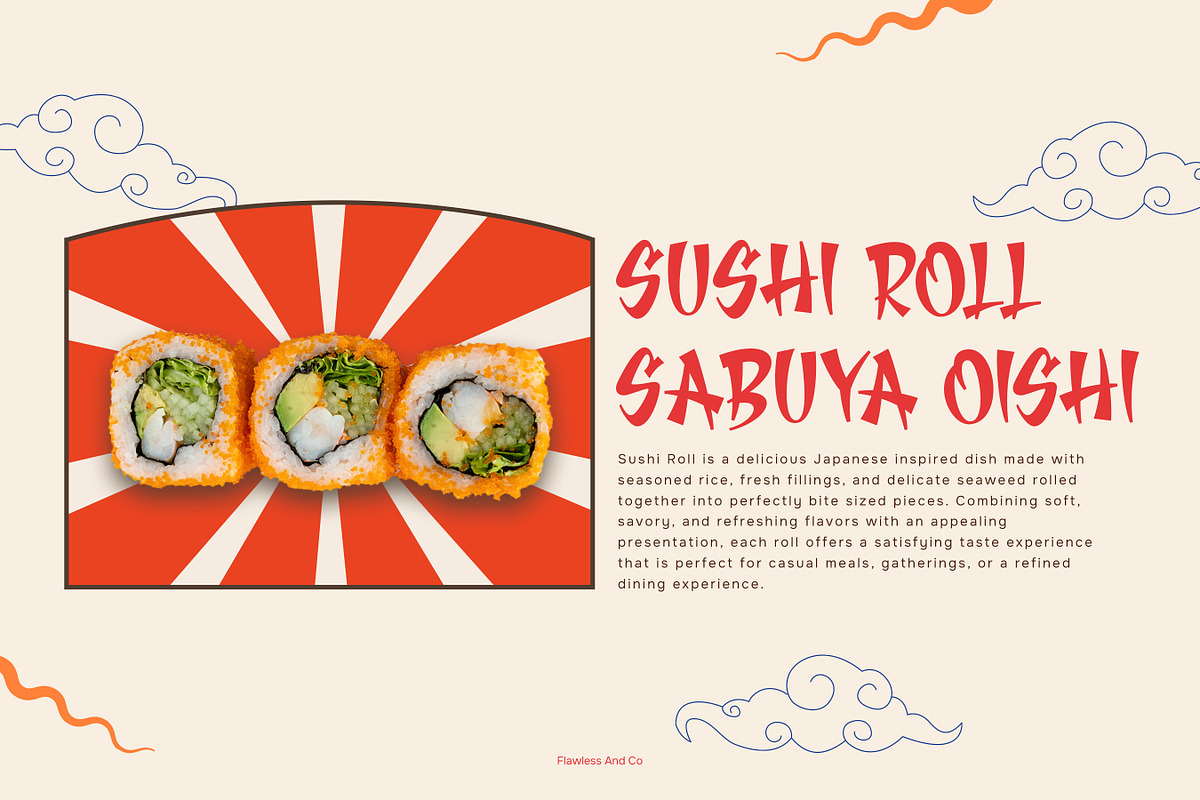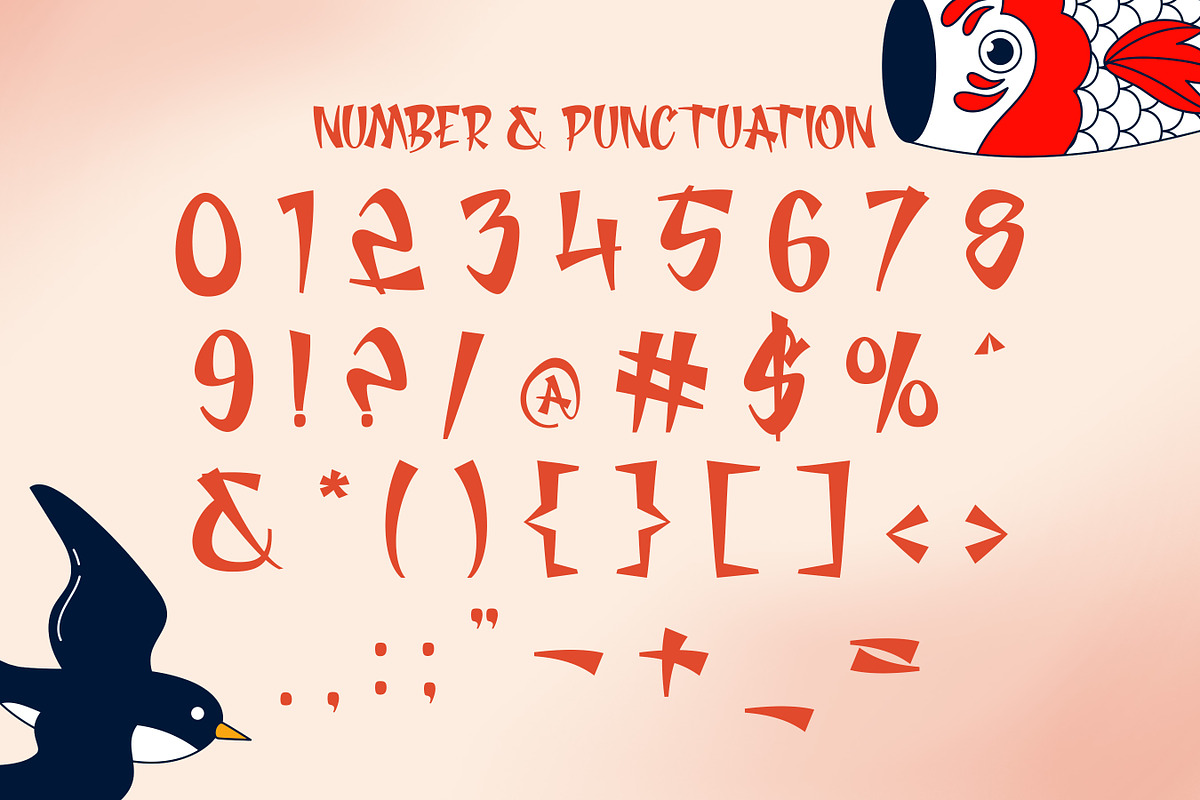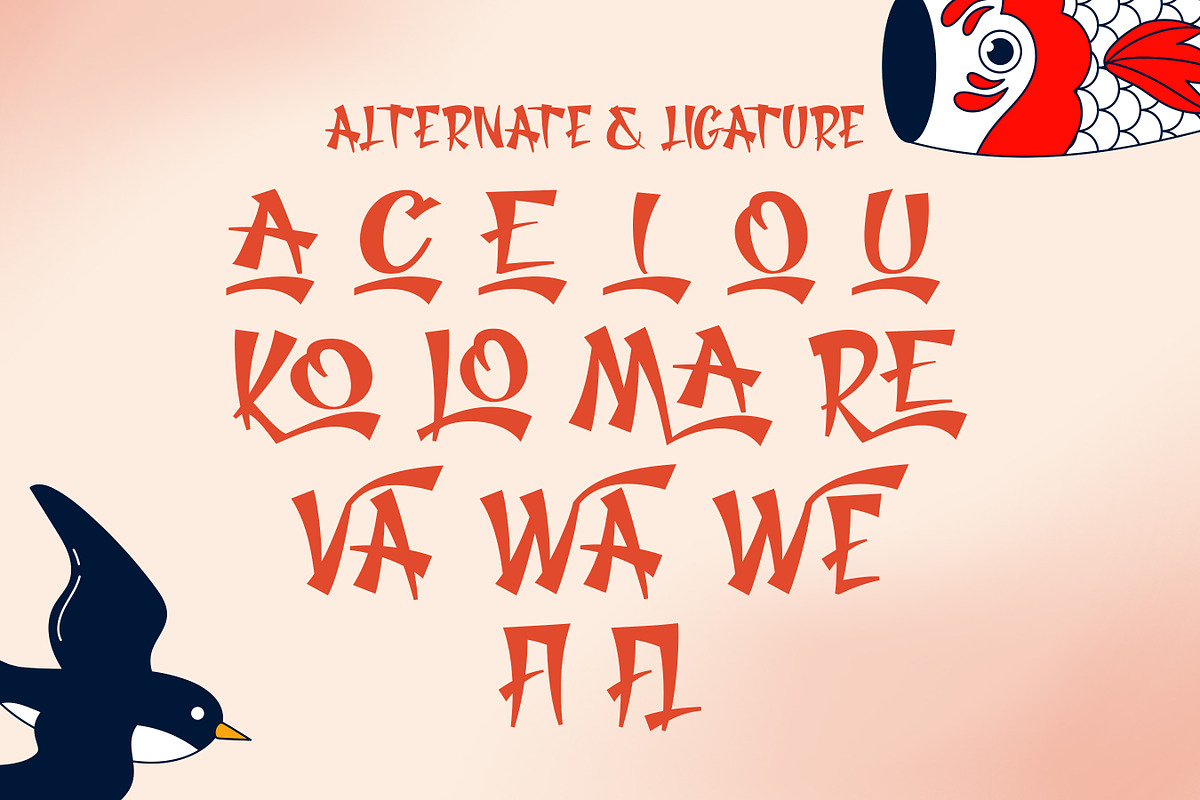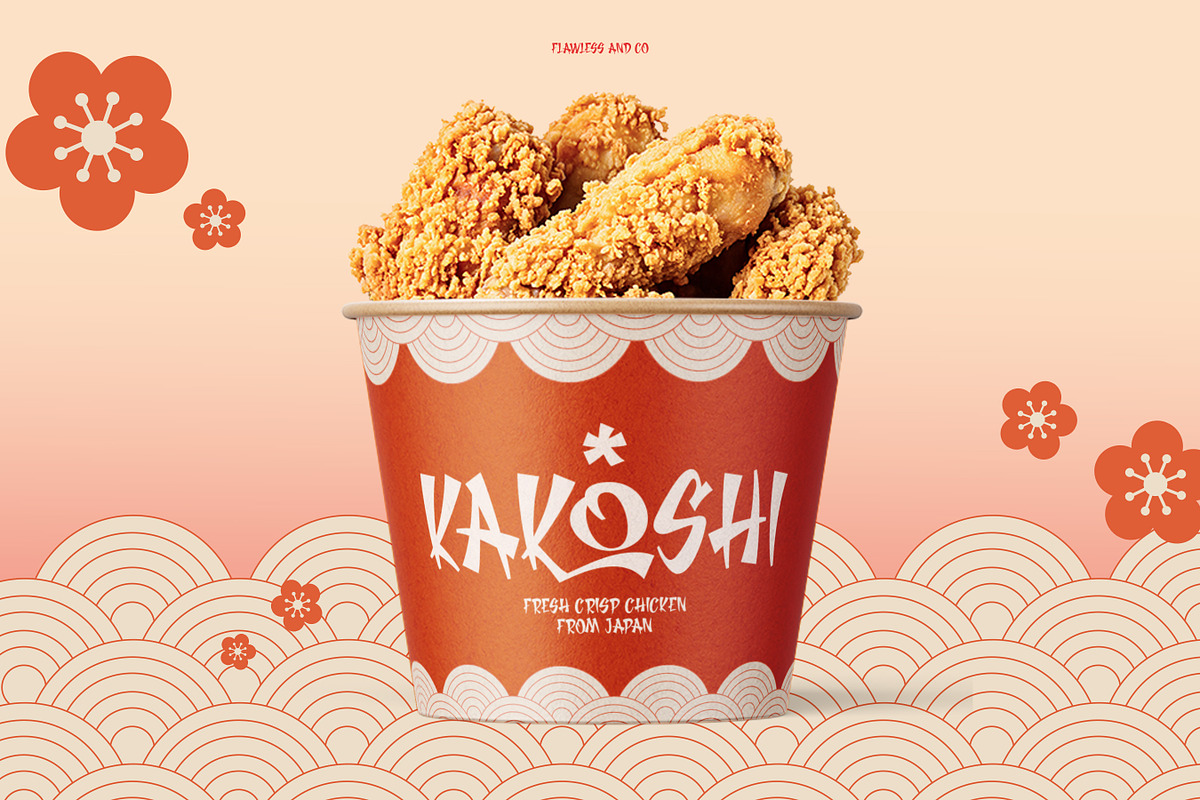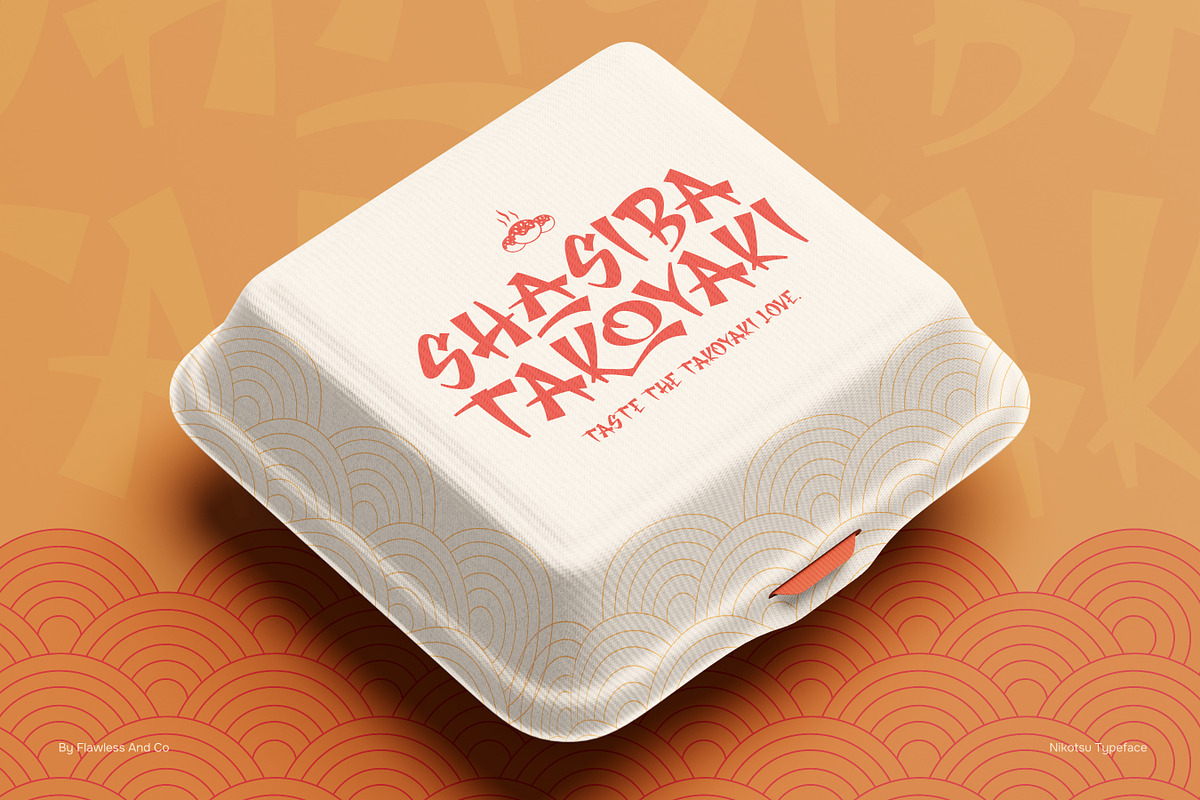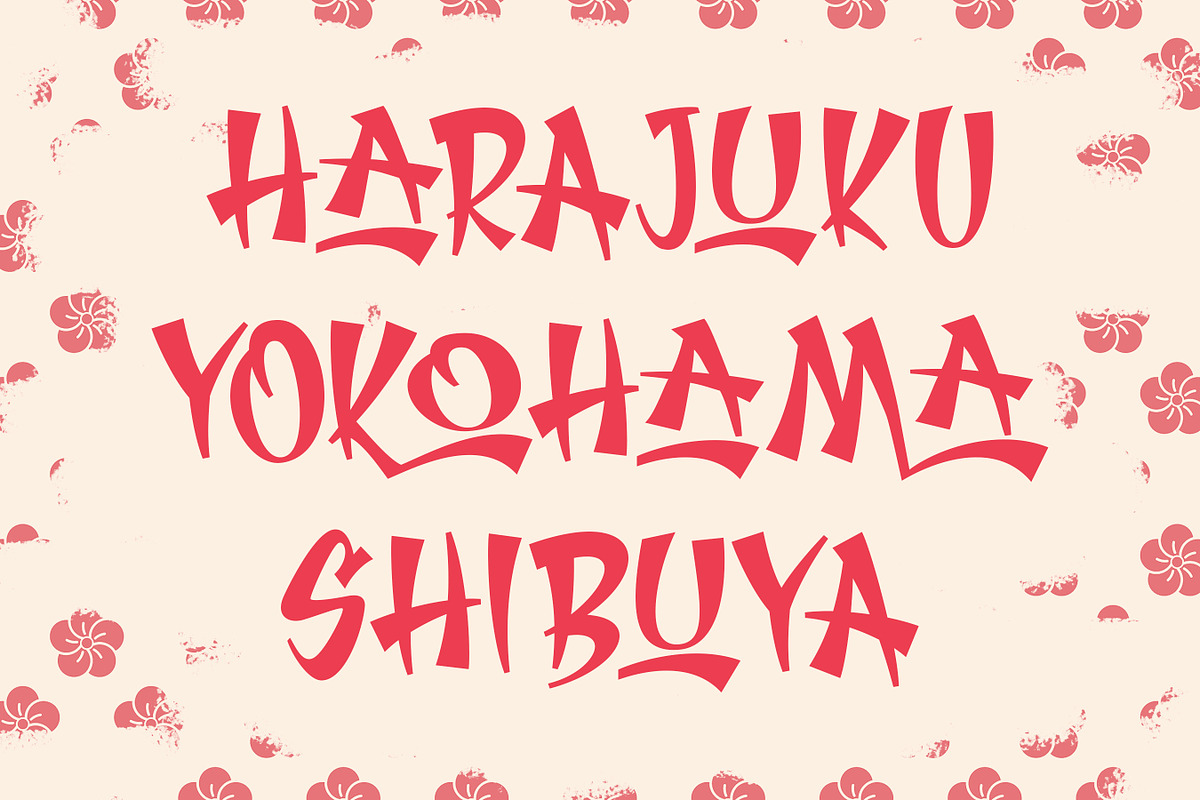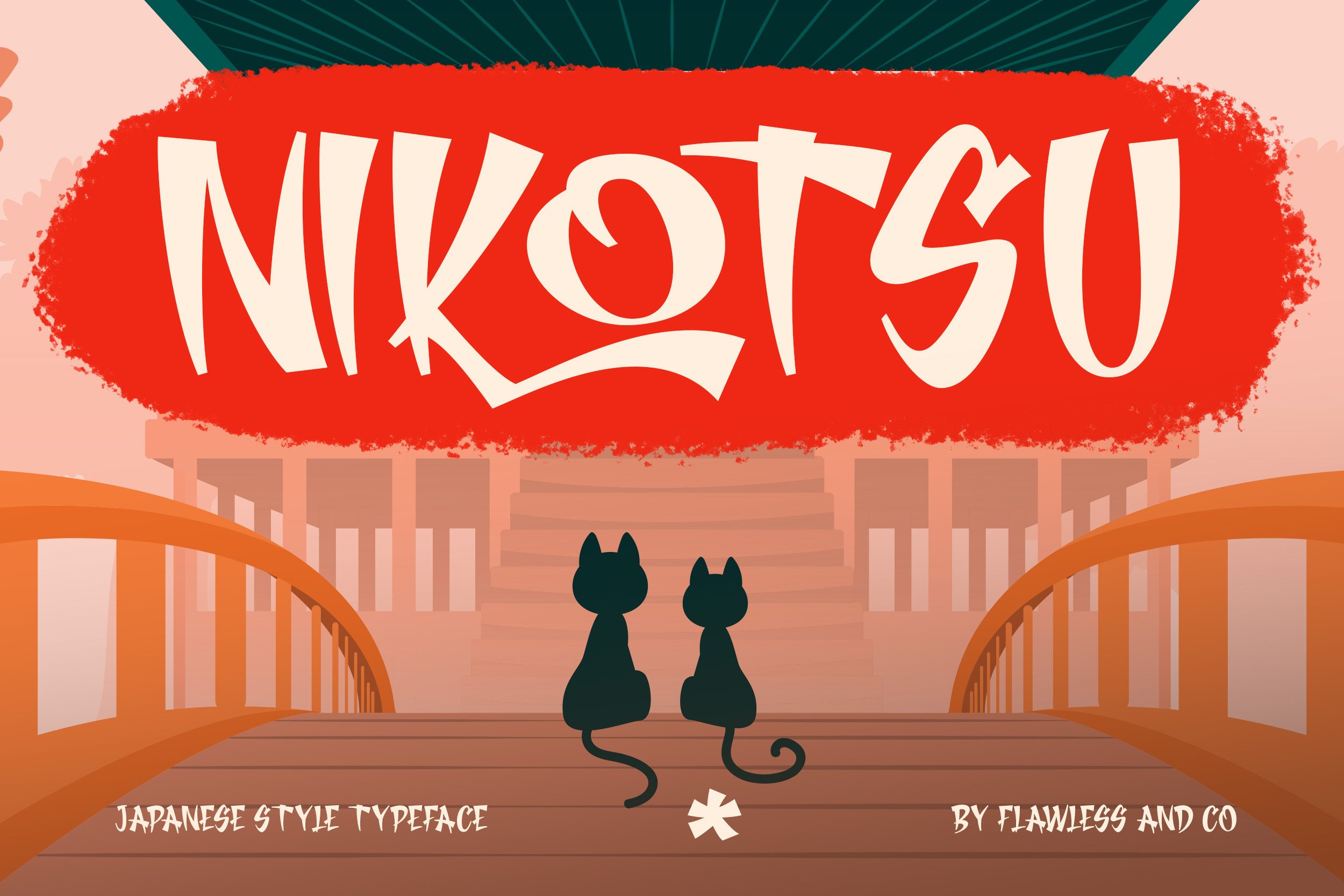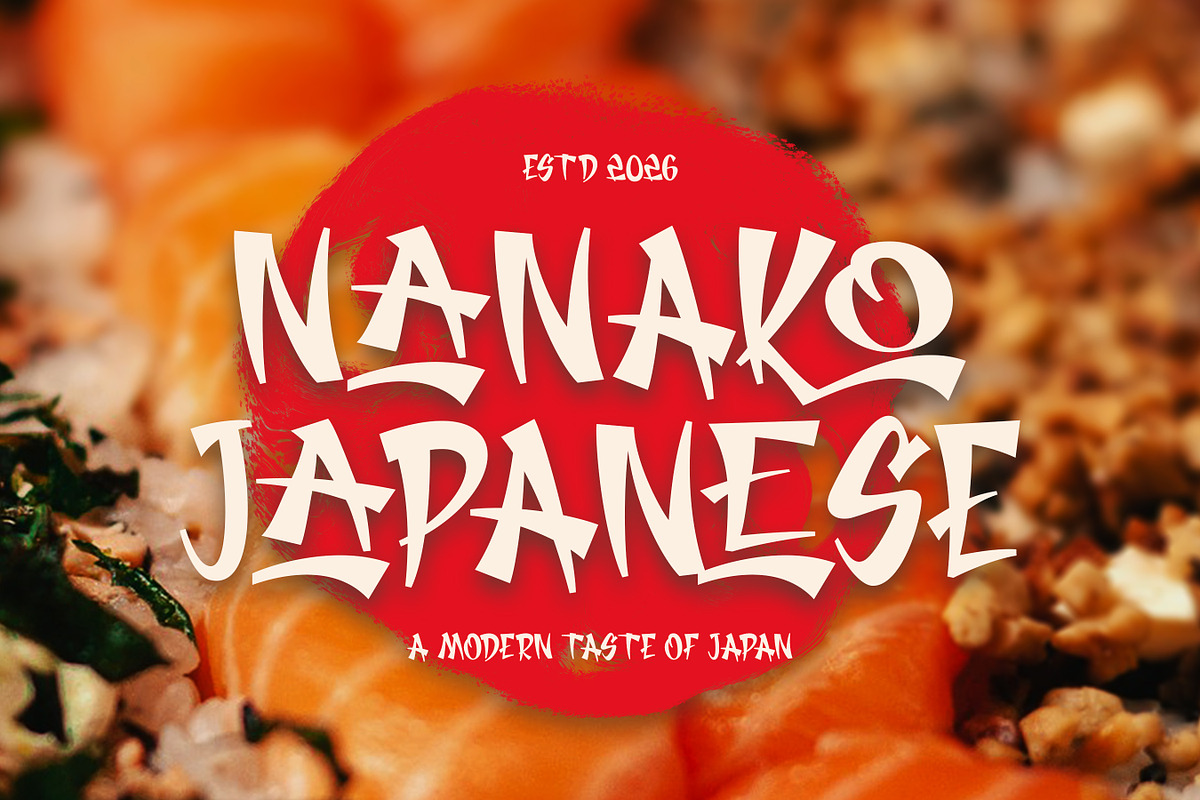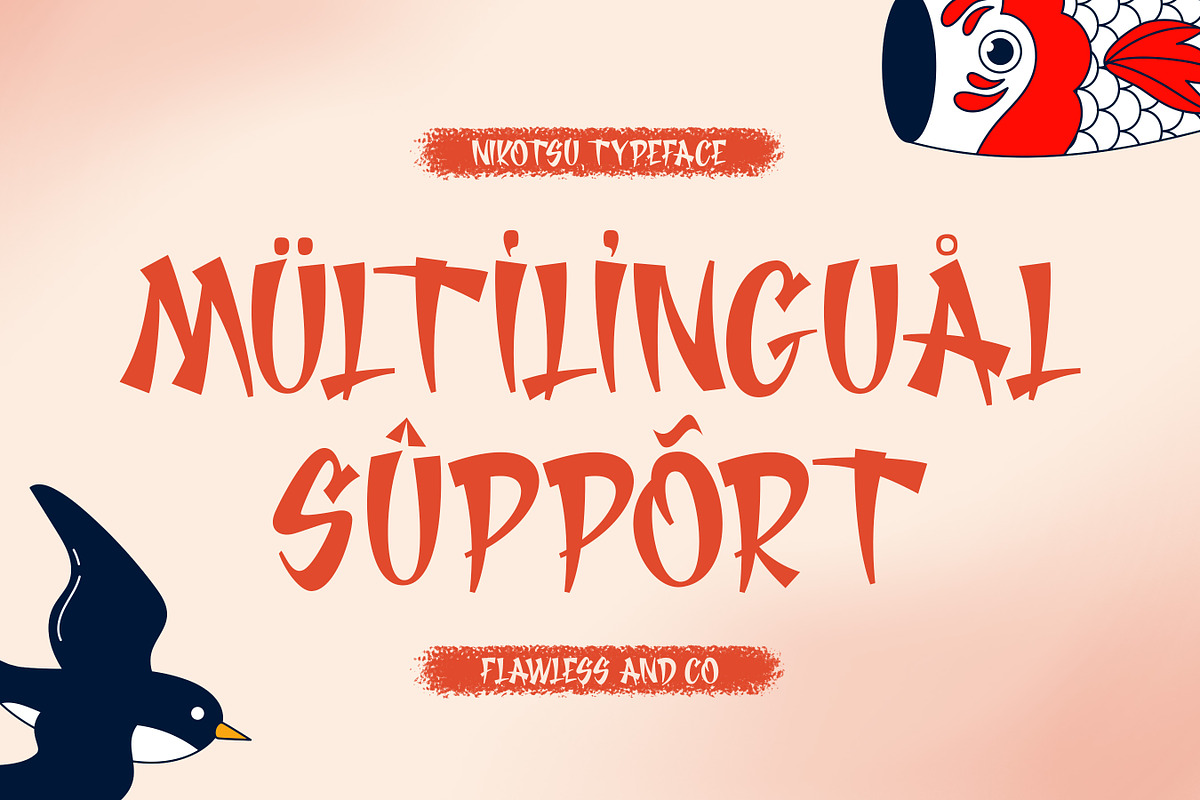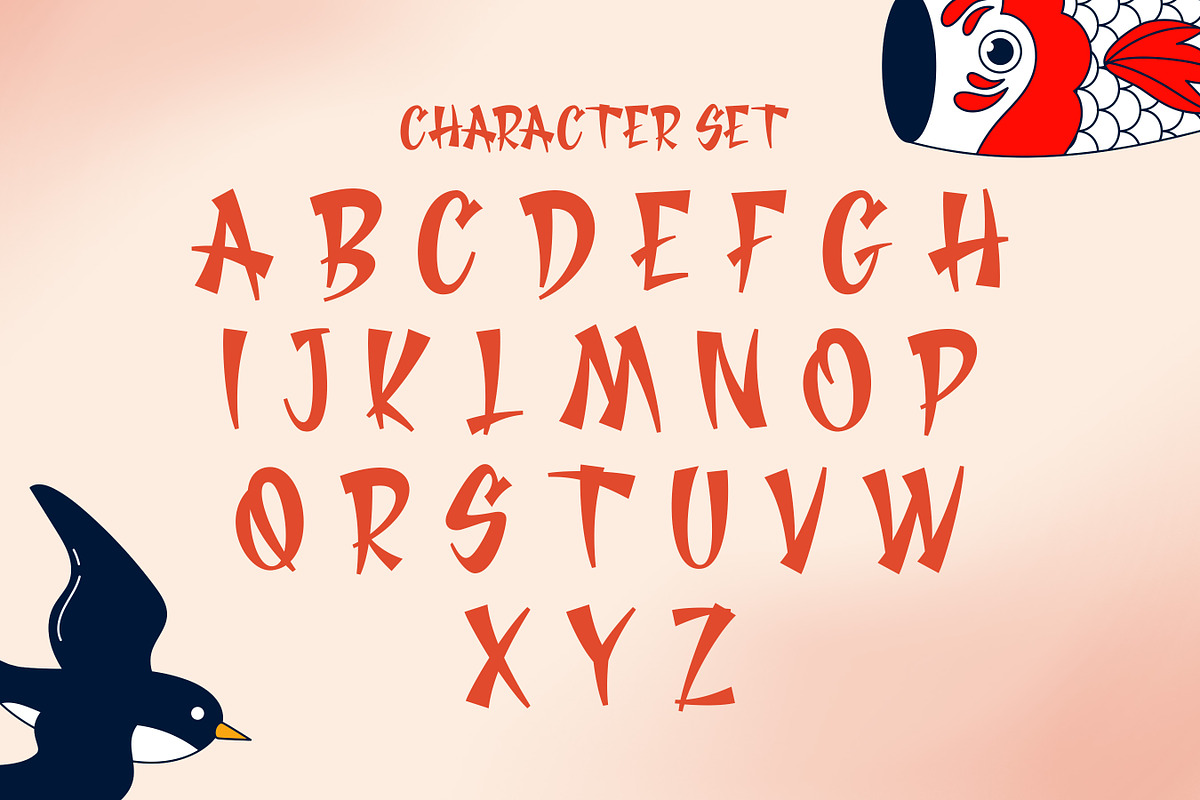
Nikotsu - Japanese Display Font
Nikotsu - Japanese Style Display Font
Nikotsu is a Japanese-style display font featuring expressive, irregular letterforms with a hand-drawn appearance. Its distinctive shapes combine bold strokes, playful curves, and unconventional proportions to create a dynamic typographic character inspired by Japanese visual aesthetics.
The letterforms have an energetic and organic structure, with varied strokes and unique details that give the typeface a handcrafted appearance. Its expressive construction makes Nikotsu suitable for large display typography where the lettering serves as a prominent graphic element.
Nikotsu works well for designs inspired by Japanese culture, street graphics, illustration, entertainment, and contemporary Asian aesthetics. Its distinctive character can be paired with illustrated elements, bold colors, traditional-inspired graphics, and modern layouts.
Uppercase & Lowercase Alternates & Ligatures Numerals & Punctuation Multilingual Support
Nikotsu is suitable for graphic designers, illustrators, creative studios, entertainment brands, content creators, and businesses looking for a Japanese-inspired display font with an expressive and distinctive visual character.
Japanese-Inspired Branding Logo Design Street Graphics Poster Design Illustration Projects Entertainment Graphics Music Artwork Event Graphics Food Branding Packaging Design Social Media Graphics Digital Advertising Editorial Headlines Creative Typography Asian-Inspired Artwork Character Designs Promotional Graphics Modern Cultural Projects